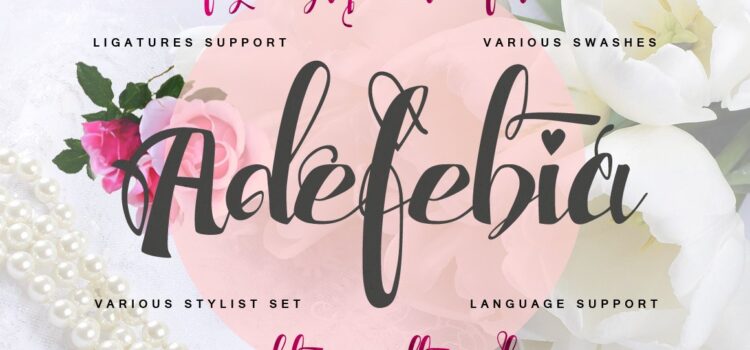
adefebia
Adefebia Font – Free Download Introduction to Adefebia Font Adefebia is a wedding-inspired script that features an modern, elegant calligraphic style. 📸 Preview Gallery 6 images 📌 Product Name Adefebia Font 👤 Author feydesign 📂 Category Explore ⬇️ Download Adefebia